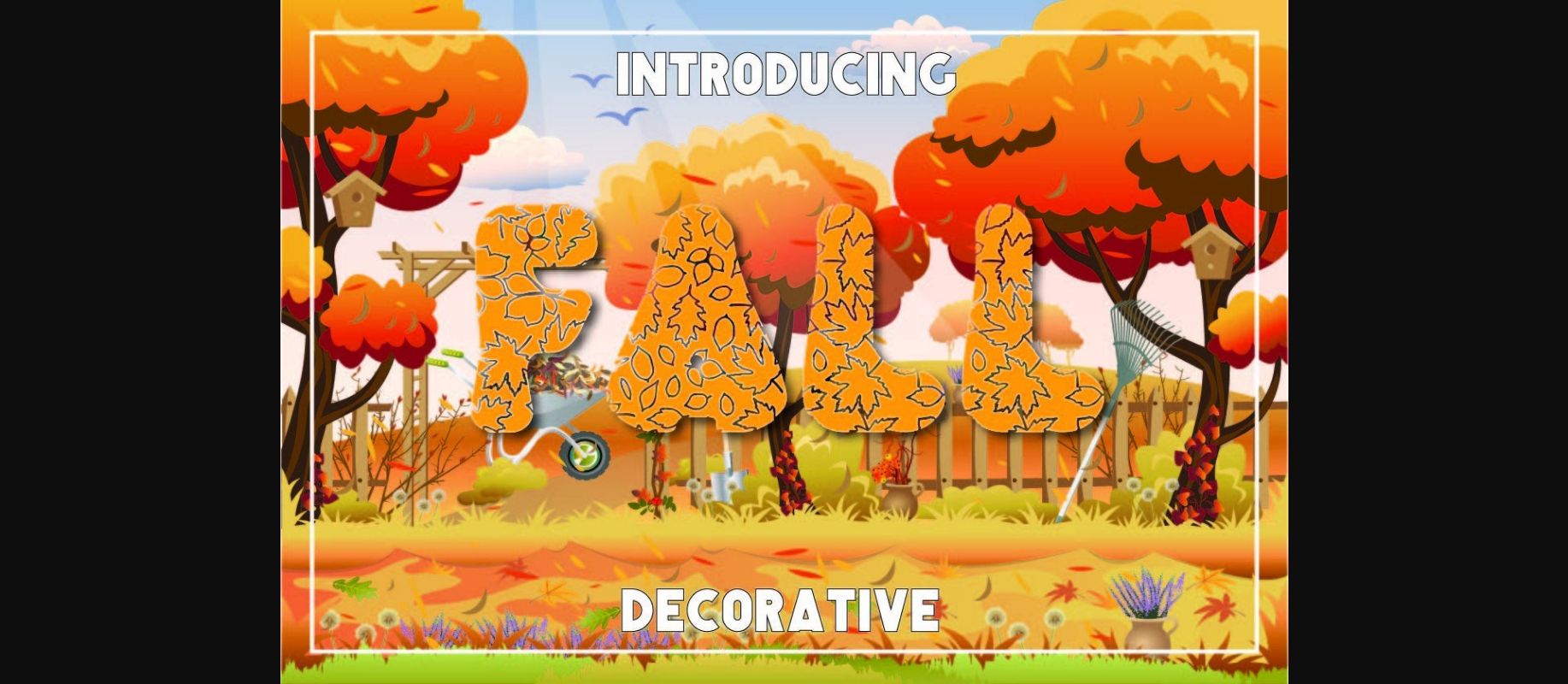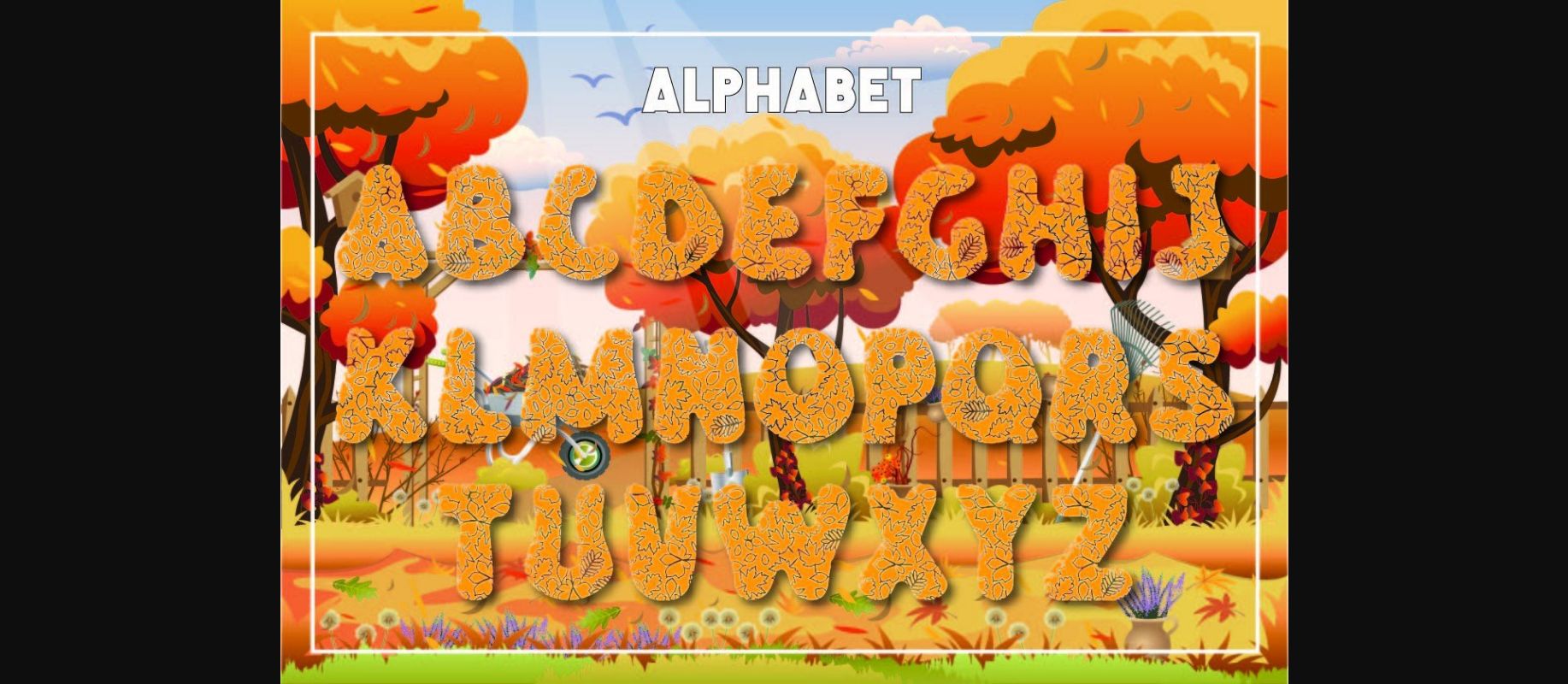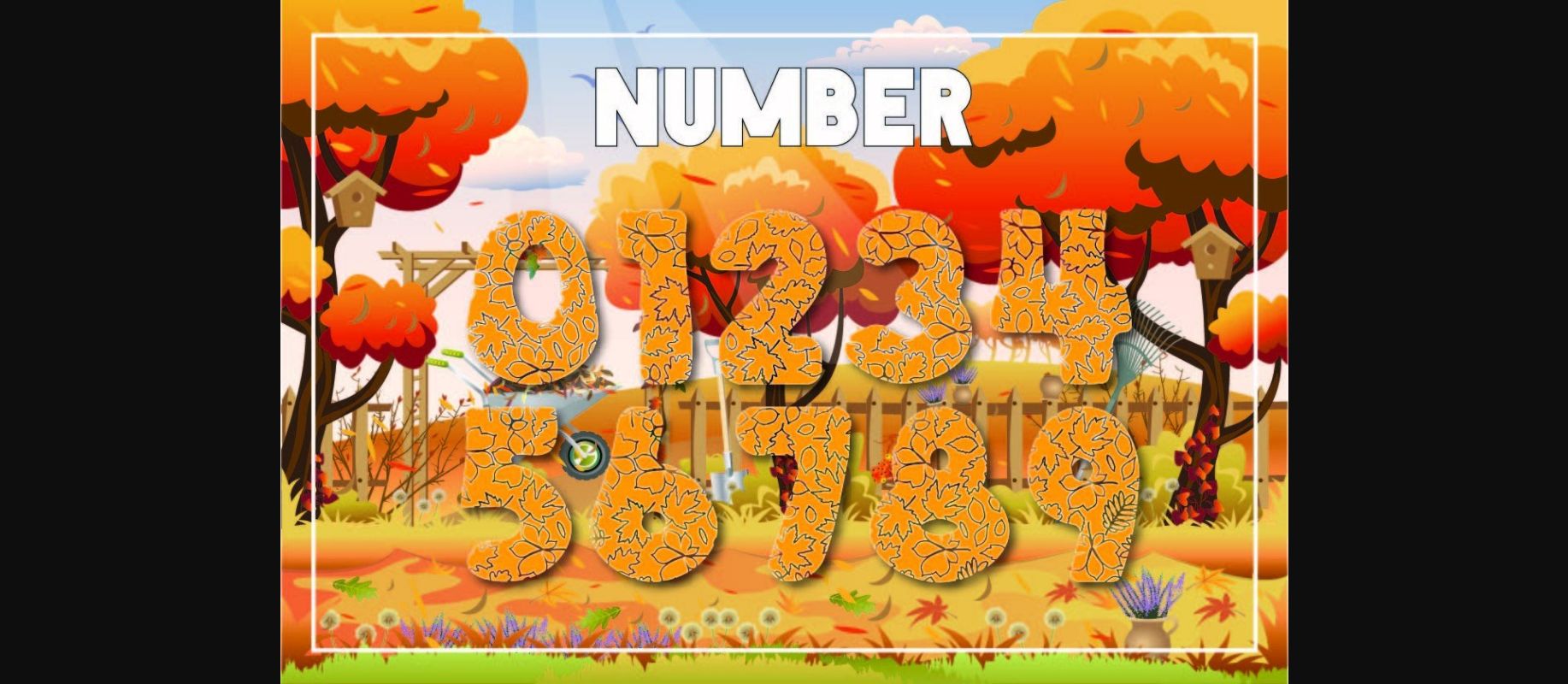
Fall is a thick lettered and incredibly unique decorative font. It can be used for various design ideas, particularly those related to the Fall season.